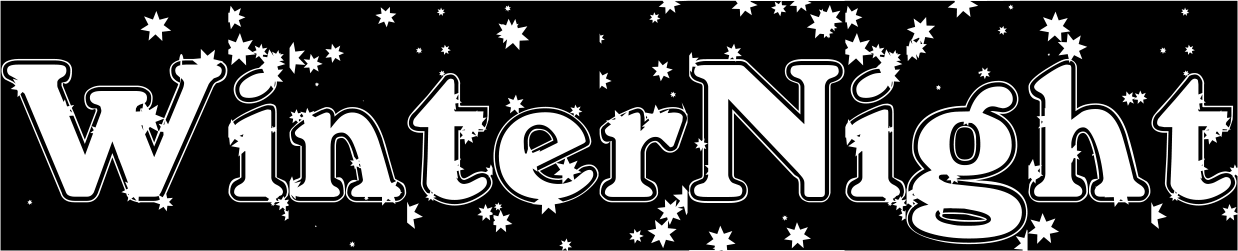
WinterNight Font
You can create the perfect typography by utilizing WinterNight, which is an icesnow font! You can benefit from this specific font from the point that the thick serif style characters are boxed, and have a snowy wintery effect. The snowflakes give your design a fun, playful, and happy feel.
The bold, classical letterforms that are mixed with letters, numbers, and punctuation are reliable. Consider it for movies, posters, games, banners, and wherever you want to carry out the winter resemblance.